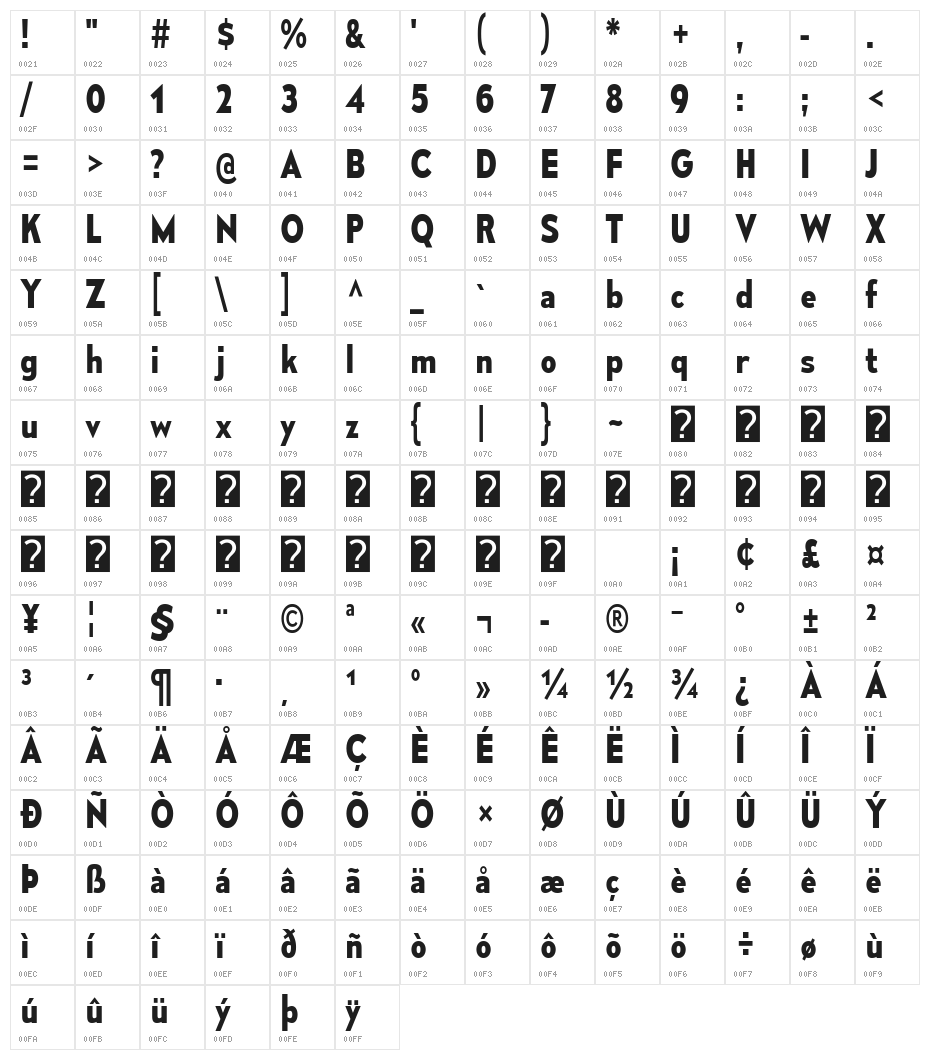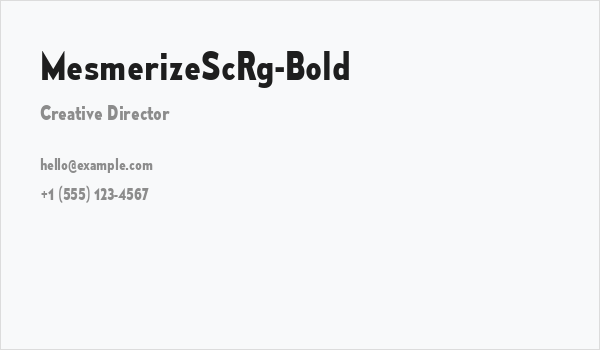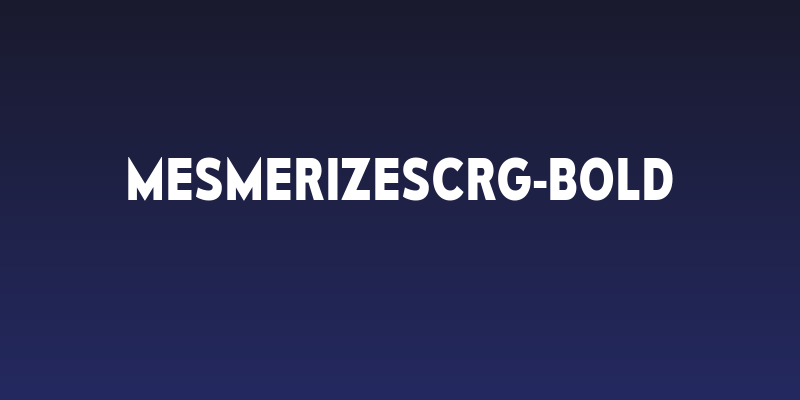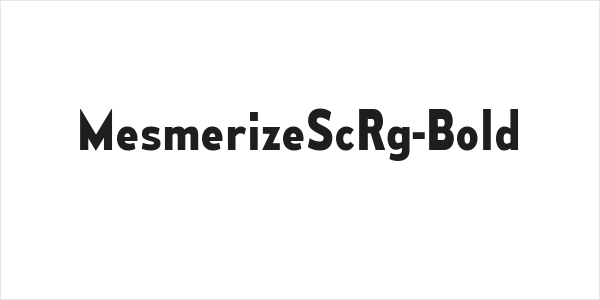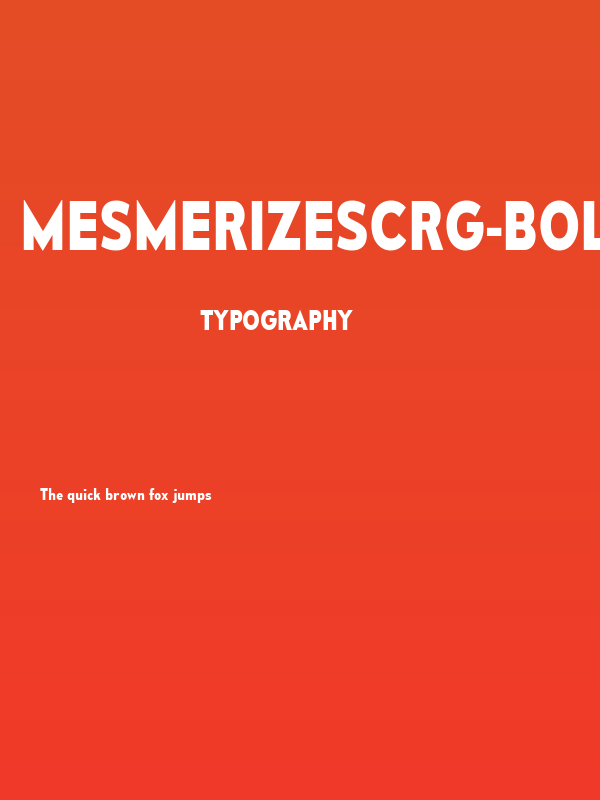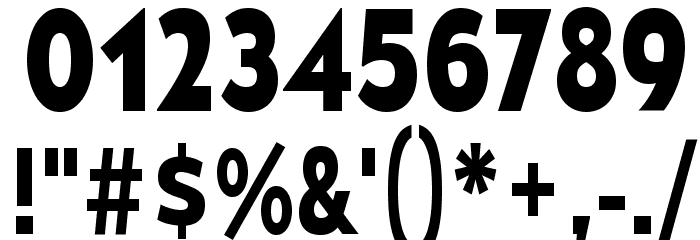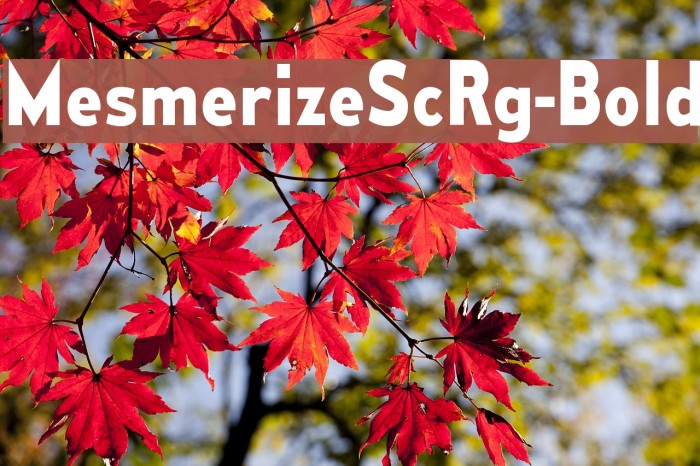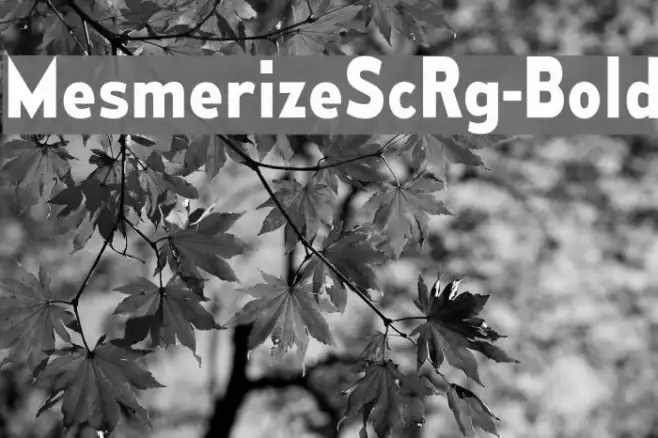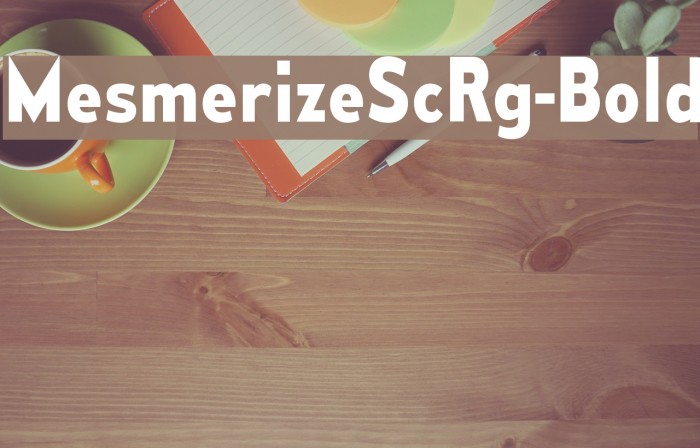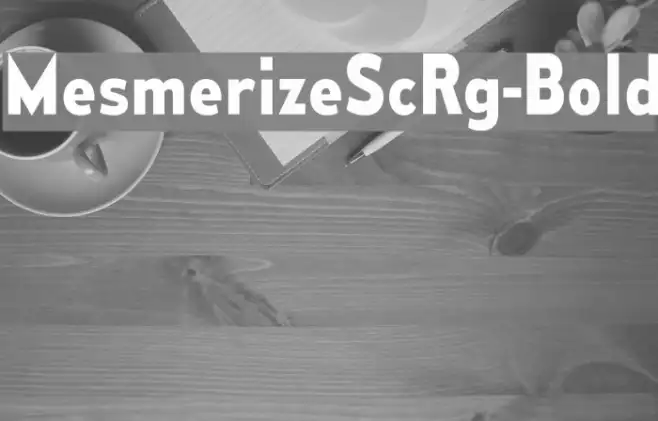
MesmerizeScRg-Bold Font
MesmerizeScRg-Bold Description
This font features a bold and robust design with clean, geometric lines that convey strength and modernity. The uppercase and lowercase letters are well-proportioned, offering a harmonious balance that enhances readability. The numerals are distinct and clear, making them suitable for various applications. Special characters are included, maintaining the font's cohesive style. The overall look is contemporary, making it ideal for projects that require a strong visual impact.
| Proposed Projects | Ideal for branding, advertising, headlines, and digital media that require a strong, modern presence. |